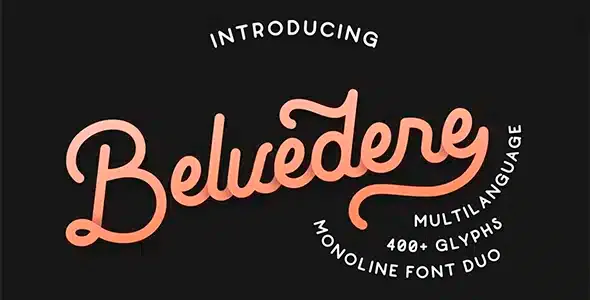
Belvedere Monoline Premium Font
Belvedere Monoline Premium Font is a versatile typeface family that includes over 400 characters and covers several languages ​​based on the Latin alphabet; the entire font design has also been completed with extensive alternate sets, ligatures, and flourishes.
This font duo would be perfect for a wide variety of design purposes such as logos, badges, apparel, posters, and more. A vector collection of 26 hand-drawn vintage illustrations has been included to perfectly match the style of both fonts. Expand your design possibilities!